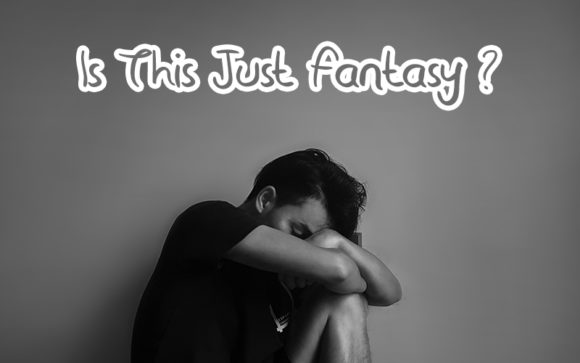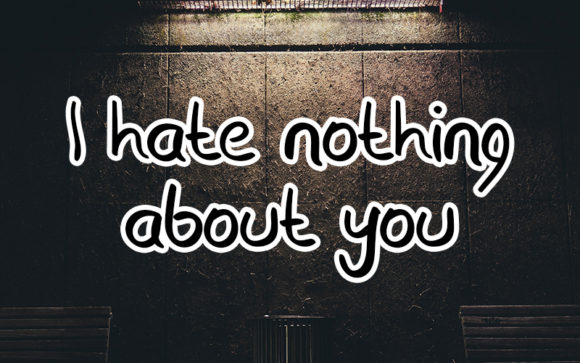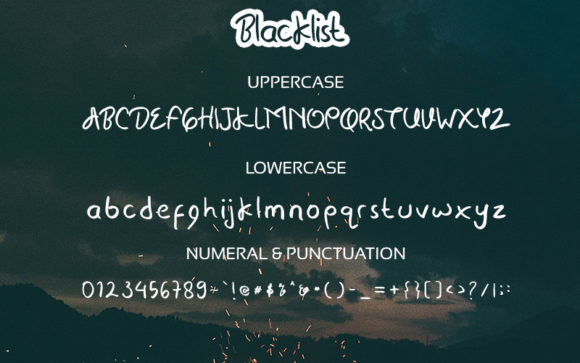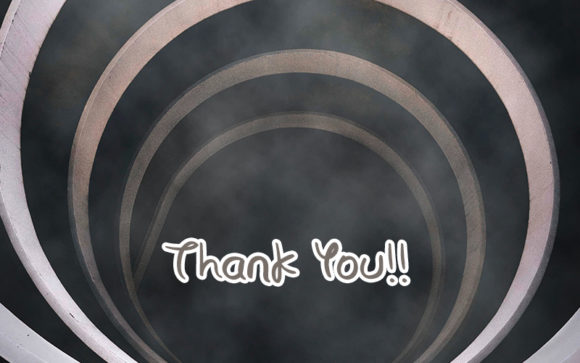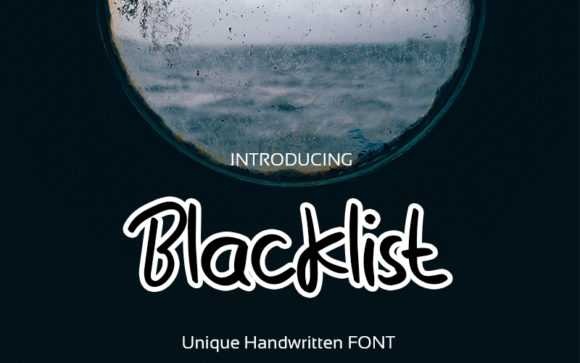
The Ultimate Guide to Blacklist Font: Adding a Touch of Whimsy to Your Designs
I’ll never forget the time I was working on a project for a client who wanted a fun and quirky font to match their brand’s playful personality. I scoured the internet for hours, trying out different fonts, but none seemed quite right. That was until I stumbled upon Blacklist Font. This enchanting handwritten font has been a game-changer for my designs, and I’m excited to share its magic with you! ✨
An Honest Review of Blacklist Font
• ✨ Unique and quirky personality: Blacklist Font embodies fun, quirkiness, and authenticity, making it perfect for creative projects.
• ✅ Highly legible: Despite its playful nature, Blacklist Font is surprisingly easy to read, even at smaller sizes.
• 💫 Versatile: This font can be used for a wide range of projects, from branding and advertising to crafting and DIY tutorials.
• 🤔 Limited use for formal projects: While Blacklist Font is amazing for creative projects, it may not be the best choice for formal or professional designs, such as business reports or academic papers.
• ⚠️ Some characters may require adjustment: Depending on the context, some characters, like the letter spacing or punctuation, may require manual adjustment for optimal results.
The Backstory of Blacklist Font
Blacklist Font was designed with the intention of creating a unique, handmade feel that would add a touch of personality to any design project. The designer aimed to craft a font that would be both fun and authentic, with a quirky charm that would set it apart from more traditional fonts.
Q: What makes Blacklist Font unique?
A: Blacklist Font’s unique personality and quirky charm make it stand out from other fonts. Its handmade feel and authentic style add a touch of whimsy to any design project.
Q: Is Blacklist Font difficult to read?
A: Despite its playful nature, Blacklist Font is surprisingly easy to read, even at smaller sizes. However, it’s best suited for creative projects where readability isn’t the top priority.